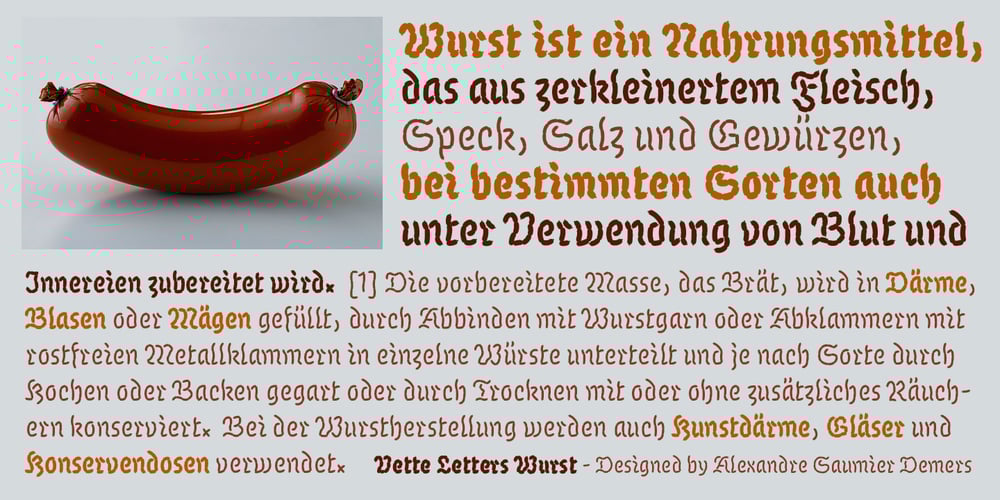
VLNL Wurst Font Family was designed by Alexandre Saumier Demers and published by VetteLetters. VLNL Wurst contains 3 styles and family package options. VLNL Wurst started as a final result in the Typographic Chinese Whispers project for Typeradio.org, in collaboration with the Type & Media master course. A soundtrack of festive Bavarian music accompanied by burping, followed by loud crunching and munching, inspired Alexandre Saumier Demers to create this typeface family. The fraktur letter forms were composed with sausages to form a recipe available in three flavours: Brat, Blut and Bier Wurst. This ‘charcuterie typographique’ is ideal for an established butcher shop, a local grocery store or a casual BBQ with friends. Wurst is so tasty, you can’t get enough of it! A “Wurst Schreiber” script was developed to automatically draw the sausages around the skeleton.